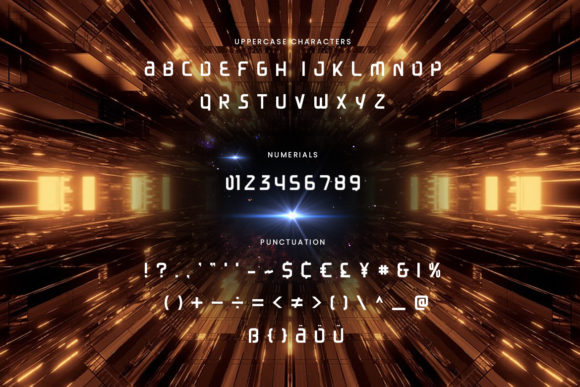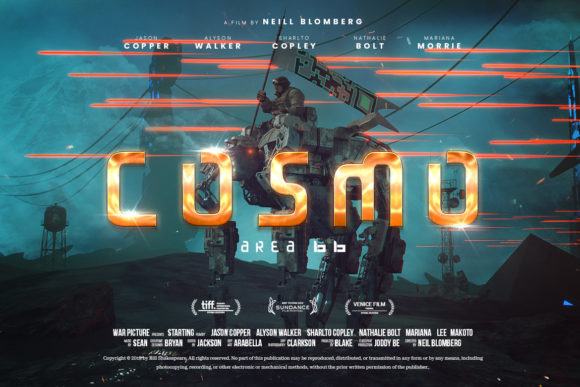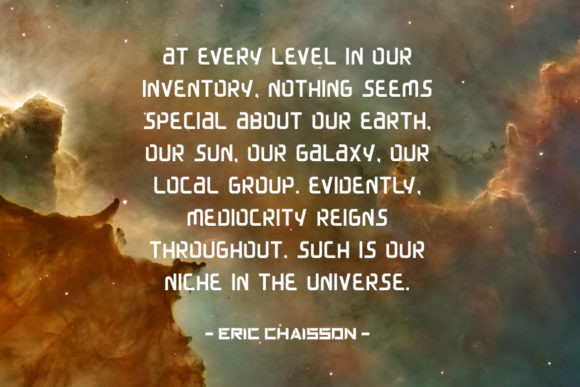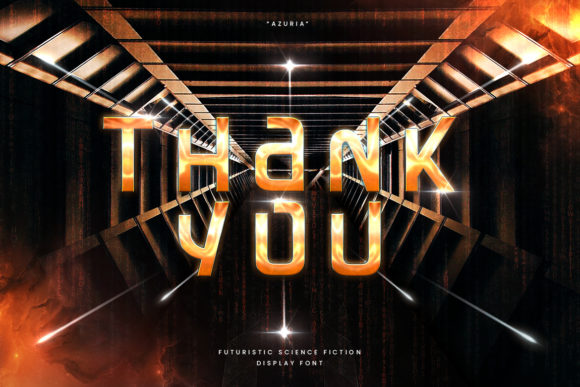
Introducing Azuria Font: Elevate Your Designs with Bold Authenticity
Are you tired of using the same old fonts in your designs? Look no further than Azuria Font, a bold and authentic display font that’s sure to make your creative ideas stand out. Azuria celebrates abstract shapes in all their eclectic beauty, adding a touch of uniqueness to any project.
The Story Behind Azuria Font
Azuria Font is more than just a font – it’s a statement. Its bold and authentic design is inspired by the beauty of abstract shapes, carefully crafted to add a touch of sophistication to your designs. Whether you’re a designer, craftsperson, or simply someone who loves to create, Azuria Font is the perfect addition to your toolkit.
What Makes Azuria Font Special?
So, what sets Azuria Font apart from other fonts out there? Here are just a few of its standout features:
- Bold and Authentic Design: Azuria Font is designed to make a statement. Its bold and authentic style is perfect for headlines, titles, and anywhere else you want to grab attention.
- Eclectic Beauty: Azuria Font celebrates abstract shapes in all their eclectic beauty. This means that each letter and character is carefully crafted to add a touch of uniqueness to your designs.
- Versatile: Azuria Font is versatile and can be used in a variety of contexts, from digital designs to print materials.
How to Use Azuria Font in Your Designs
Azuria Font is easy to use and can be incorporated into your designs in a variety of ways. Here are a few ideas to get you started:
- Headlines and Titles: Use Azuria Font to create bold and eye-catching headlines and titles that grab attention.
- Logos and Branding: Azuria Font is perfect for logos and branding, adding a touch of sophistication and uniqueness to your brand identity.
- Posters and Flyers: Add Azuria Font to your posters and flyers to make them stand out and grab attention.
Tips for Pairing Azuria Font with Other Fonts
Azuria Font is a bold and authentic display font, which means it’s best paired with other fonts that complement its style. Here are a few tips for pairing Azuria Font with other fonts:
- Use a Contrasting Font: Pair Azuria Font with a contrasting font that’s simple and clean. This will create a beautiful visual contrast that adds depth to your designs.
- Choose a Font with a Similar Style: If you want to create a cohesive look, choose a font that has a similar style to Azuria Font. This will create a consistent visual identity that ties your design together.